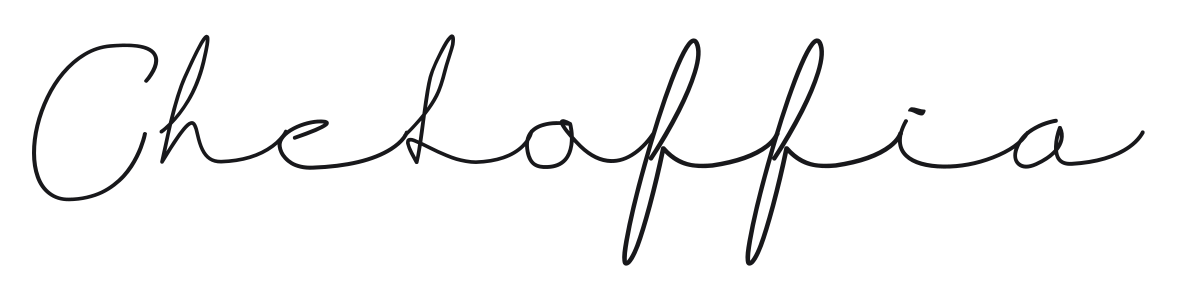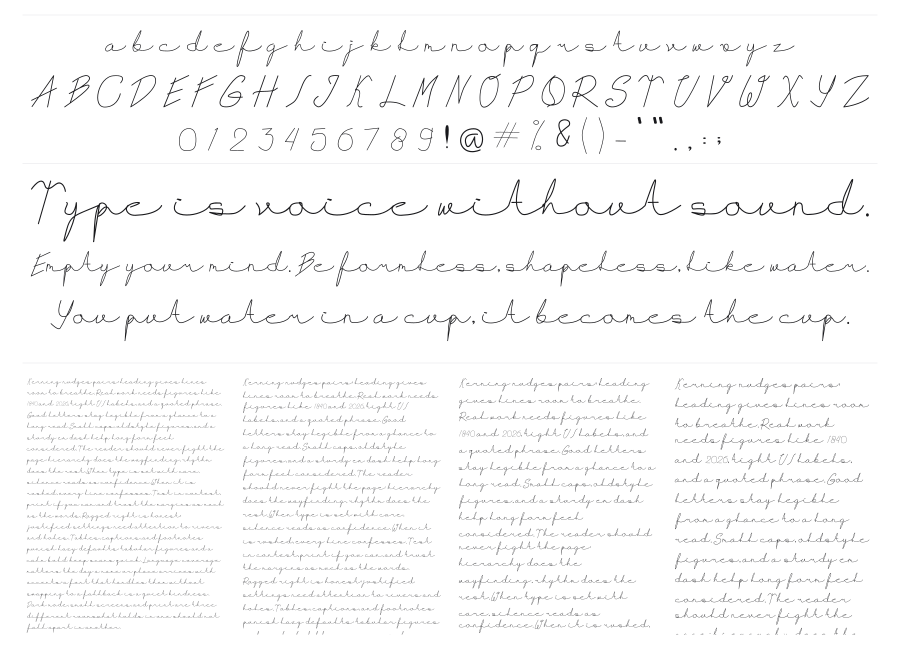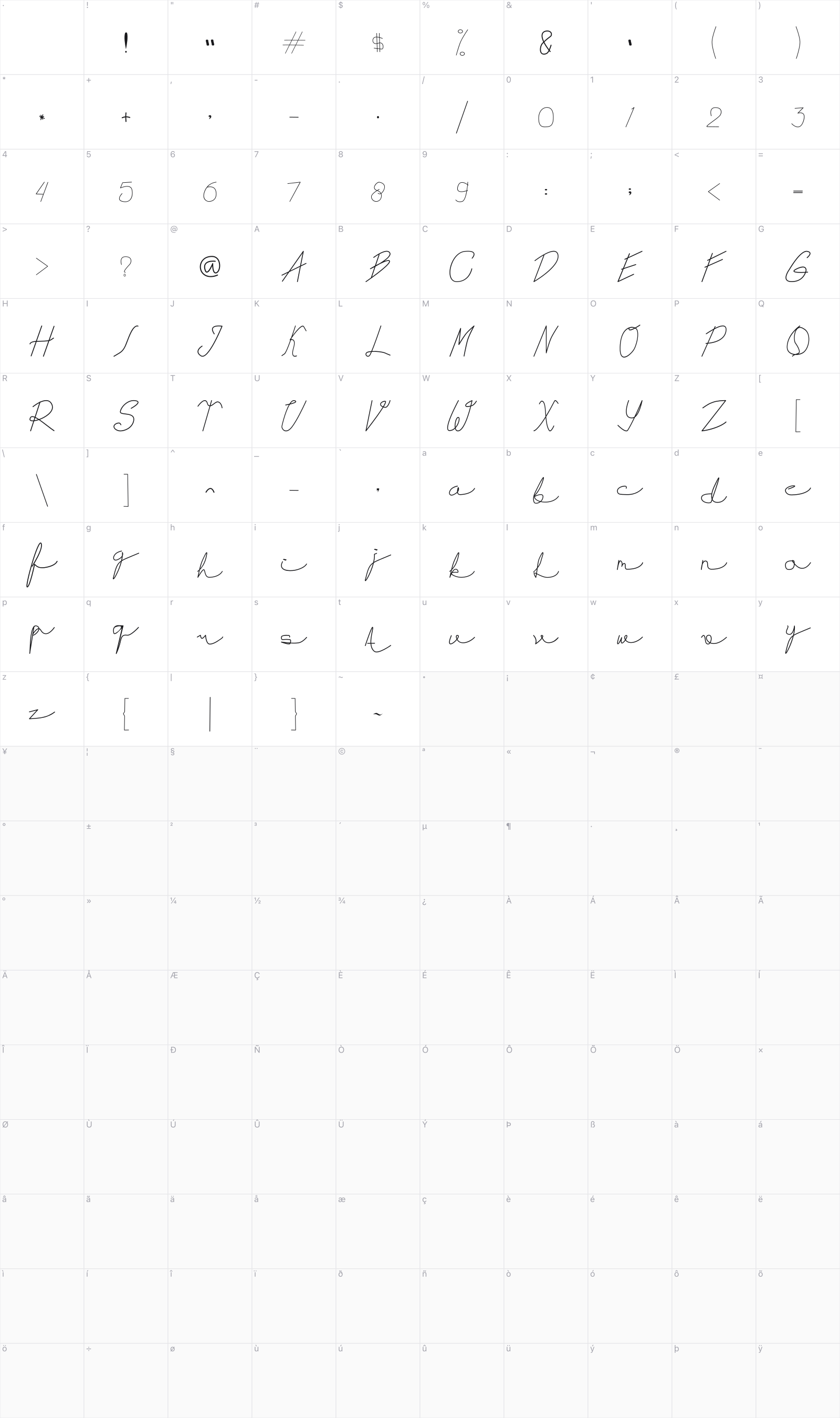
Cheloffia
Cheloffia is a hairline handwritten cursive script sketched with a hand-lettering approach, giving it the feel of a single unbroken pen stroke. Letters connect loosely and naturally, with slight irregularities that keep it from feeling mechanical. It works best at large sizes where the ultra-thin strokes read clearly against a clean background.